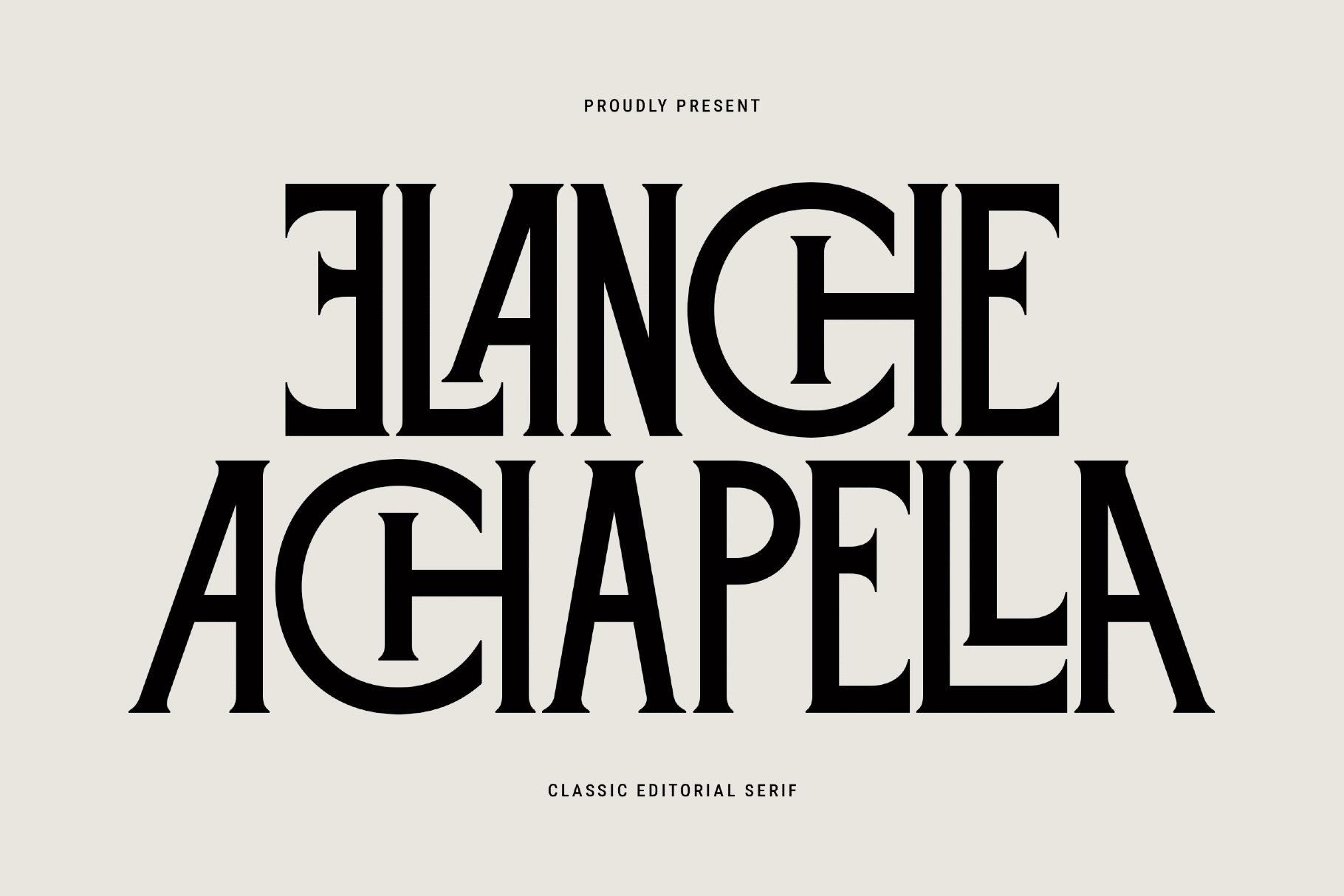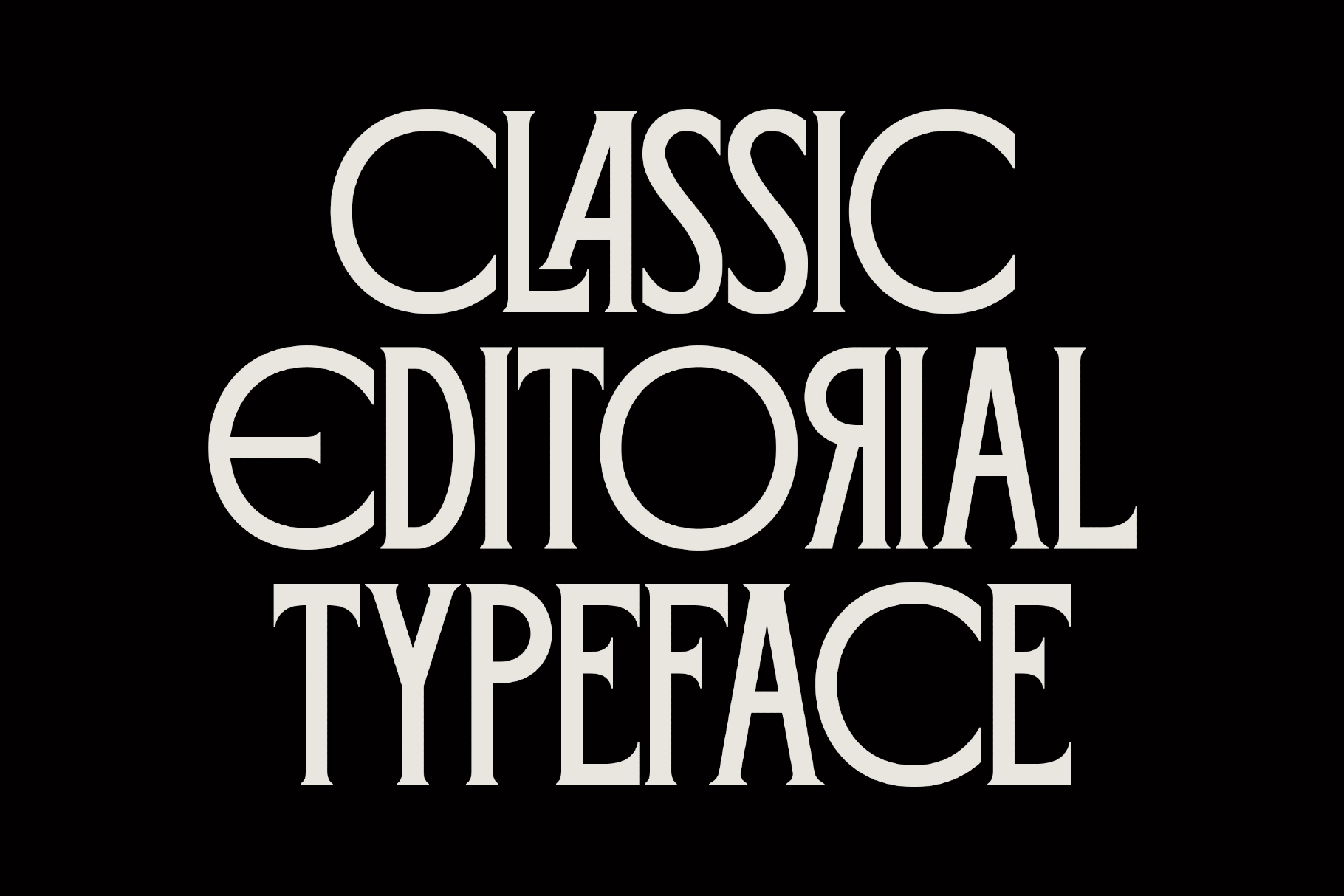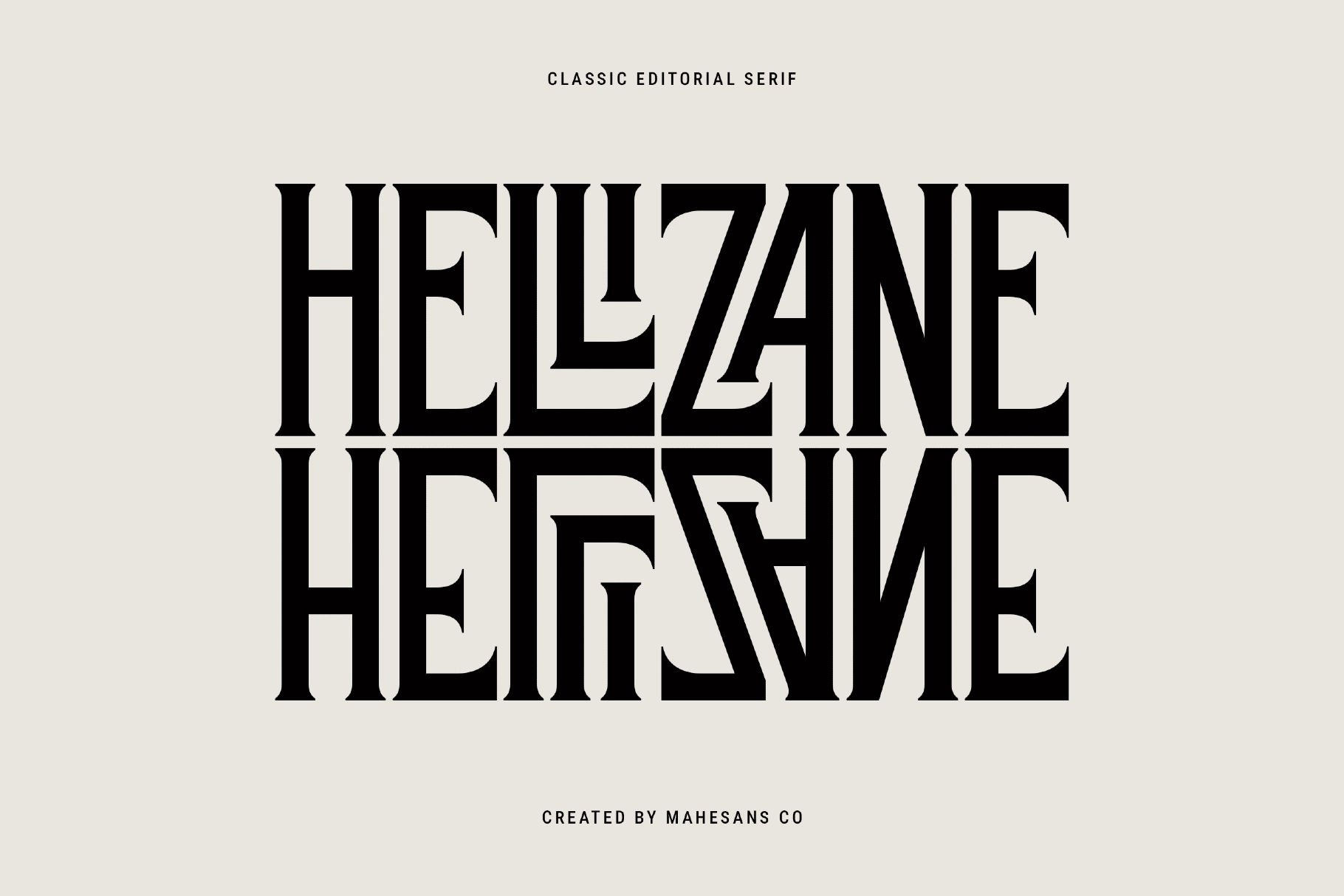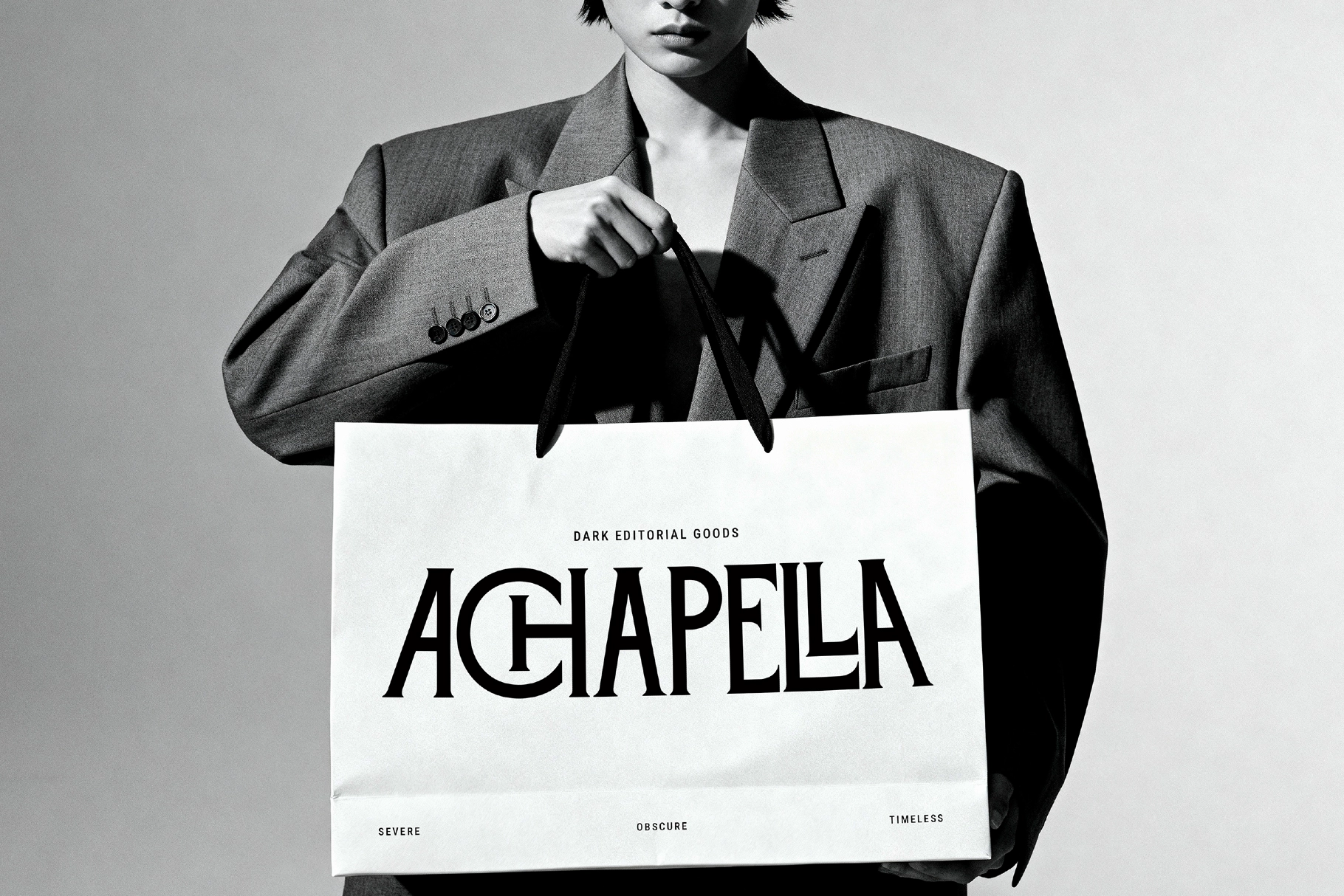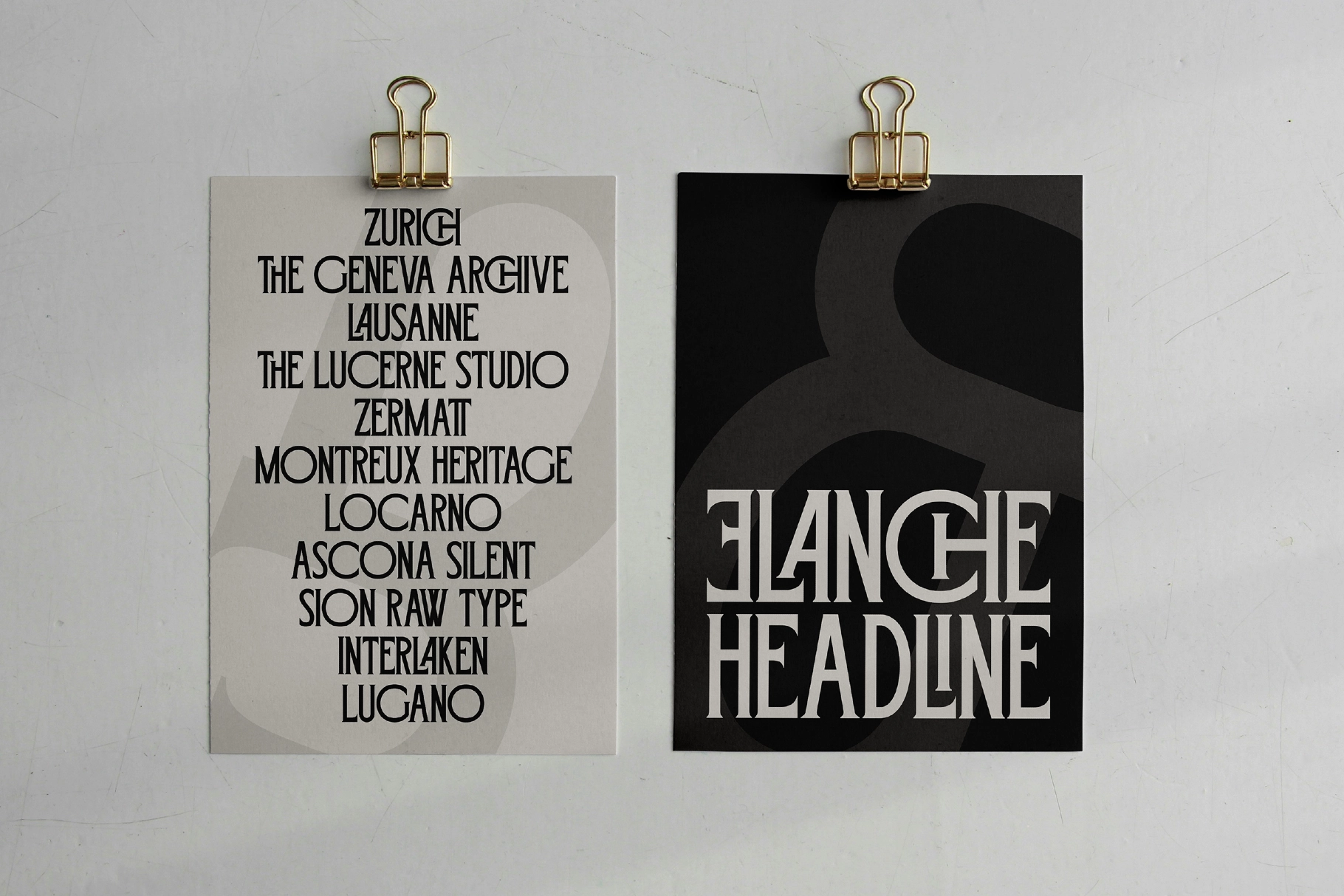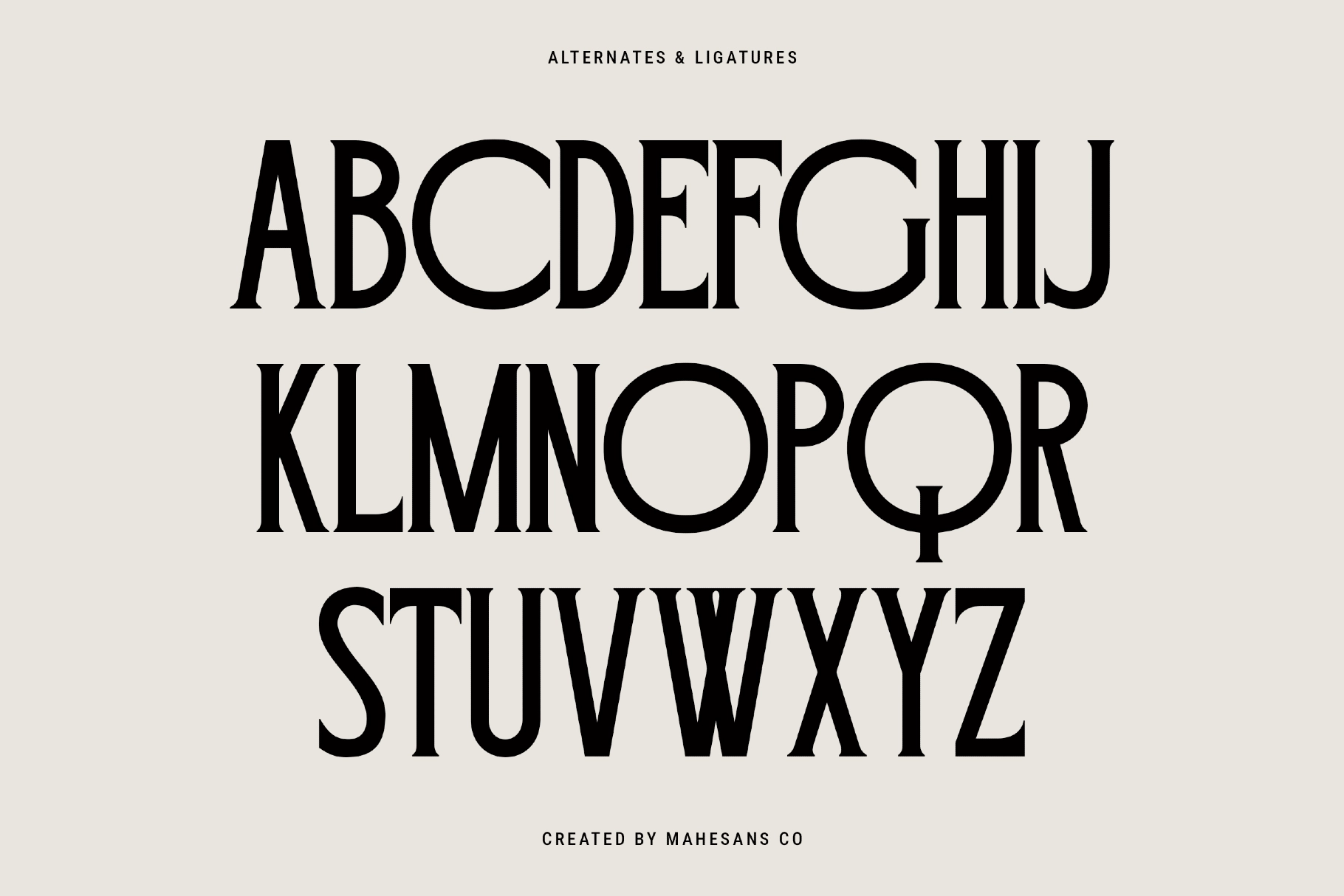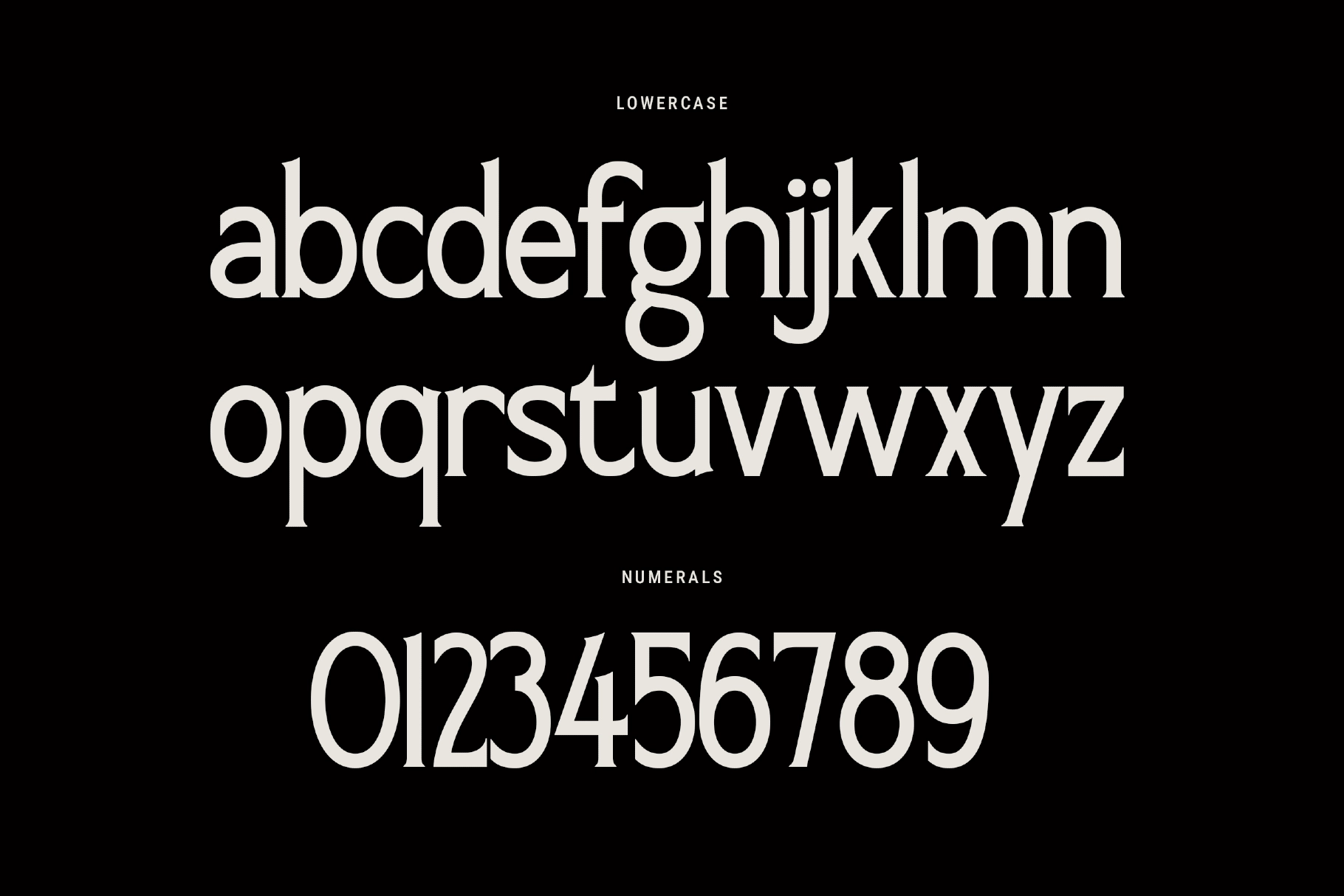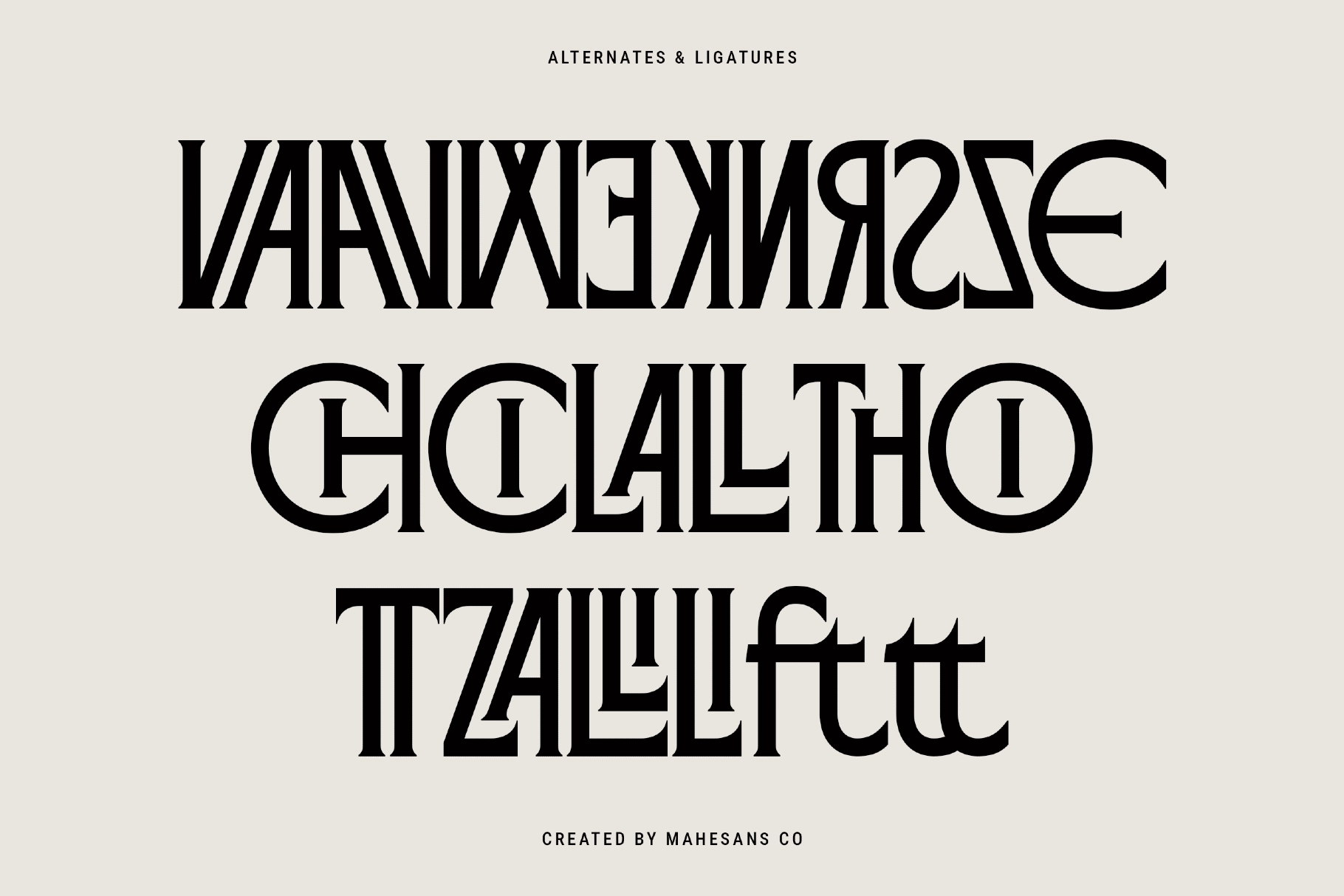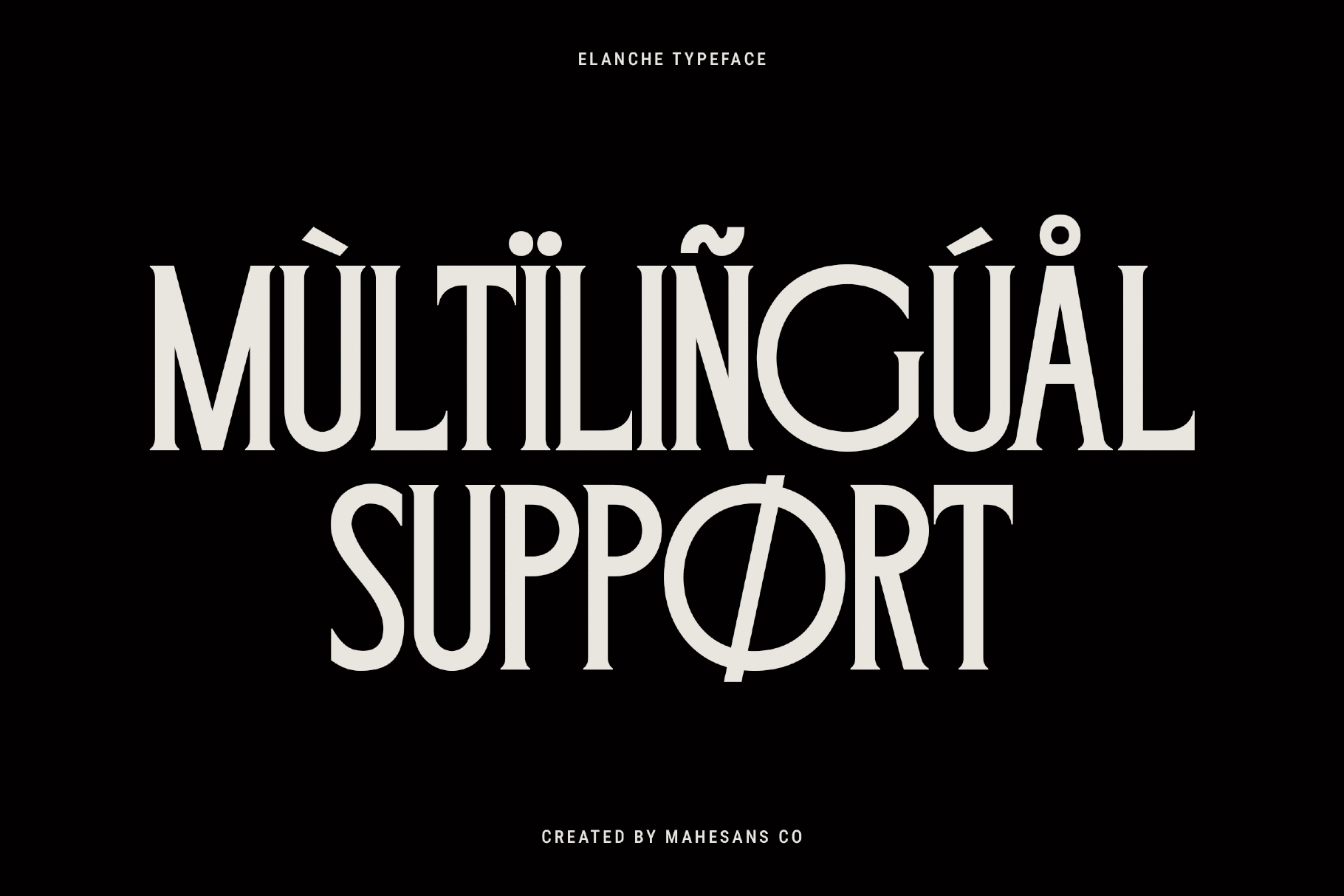
Elanche - Classic Editorial Serif Font
Elanche
Elanche is a high-contrast serif font with tall condensed caps and flared, bracketed terminals, built with the editorial polish that fashion magazines and luxury branding demand. Sculptural ligatures fuse pairs of capitals into single ornamental marks, giving headline type a finish uncommon in a standard display serif.
Its editorial rhythm sits closer to a magazine masthead than a workhorse text face, so Elanche works best in short, confident headline settings. Use it for magazine feature titles, luxury logos, fashion lookbooks, campaign headlines, book covers, exhibition posters, cosmetic packaging, fragrance boxes, and premium gift sets.
- Uppercase & lowercase;
- Numerals, punctuation & symbols;
- Ligatures & alternates;